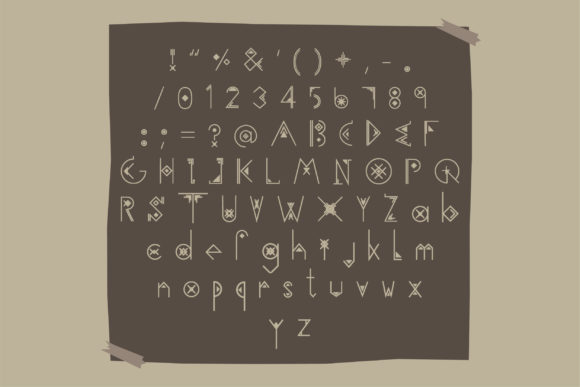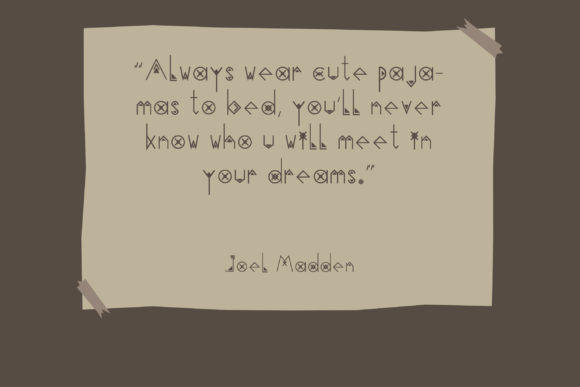
Introducing Ethic Art Font: The Ultimate Choice for a Relaxed and Hippie Vibe
Are you a designer or crafter looking for a font that embodies the carefree spirit of the hippie culture? Look no further than Ethic Art Font, a cool and decorative font that’s perfect for adding a relaxed touch to your creations. With its informal style and casual vibe, Ethic Art Font is sure to become a go-to choice for any project that requires a laid-back feel.
The Characteristics of Ethic Art Font
Ethic Art Font is a unique and eye-catching font that’s characterized by its playful and whimsical design. The font features irregular shapes, varying line widths, and a carefree spirit that’s reminiscent of the hippie culture of the 1960s and 1970s. The letters are designed to look hand-drawn, giving the font a personal and human touch that’s perfect for creating a sense of nostalgia and warmth.
What Makes Ethic Art Font So Versatile?
One of the things that sets Ethic Art Font apart from other fonts is its versatility. The font can be used for a wide range of projects, from posters and flyers to t-shirts and other craft projects. It’s also a great choice for creating social media graphics, blog posts, and other digital content that requires a relaxed and casual tone. Whether you’re creating a logo, a headline, or a block of text, Ethic Art Font is sure to add a touch of personality and whimsy to your design.
The Benefits of Using Ethic Art Font
So why should you choose Ethic Art Font for your next project? Here are just a few benefits of using this amazing font:
• Unique and eye-catching design: Ethic Art Font is a one-of-a-kind font that’s sure to grab attention and make your design stand out.
• Relaxed and casual vibe: The font’s informal style and casual vibe make it perfect for creating a laid-back and carefree atmosphere.
• Versatile: Ethic Art Font can be used for a wide range of projects, from digital content to print materials.
• Easy to read: Despite its playful design, Ethic Art Font is easy to read and understand, making it perfect for creating headlines, titles, and other types of text.
How to Use Ethic Art Font in Your Designs
Using Ethic Art Font in your designs is easy. Here are a few tips to get you started:
• Pair it with other fonts: Ethic Art Font looks great when paired with other fonts, such as sans-serif fonts or script fonts.
• Use it for headlines and titles: The font’s playful design makes it perfect for creating eye-catching headlines and titles.
• Add some color: Ethic Art Font looks great in a variety of colors, from bright and bold to pastel and muted.
• Experiment with different sizes: The font looks great in a range of sizes, from small and delicate to large and bold.
Ethic Art Font is a unique and versatile font that’s perfect for designers and crafters who want to add a relaxed and hippie vibe to their creations. With its playful design, informal style, and casual vibe, this font is sure to become a go-to choice for any project that requires a laid-back feel. So why not give Ethic Art Font a try and see how it can add a touch of personality and whimsy to your designs?
Here are a few tips for designers and crafters who want to get the most out of Ethic Art Font:
• Be creative: Don’t be afraid to experiment with different colors, sizes, and styles to create a unique look.
• Keep it simple: Ethic Art Font is a playful font, but it’s still easy to read. Keep your design simple and uncluttered to make the most of the font.
• Have fun: The most important thing is to have fun and be creative with Ethic Art Font. Experiment with different designs and styles to find what works best for you.